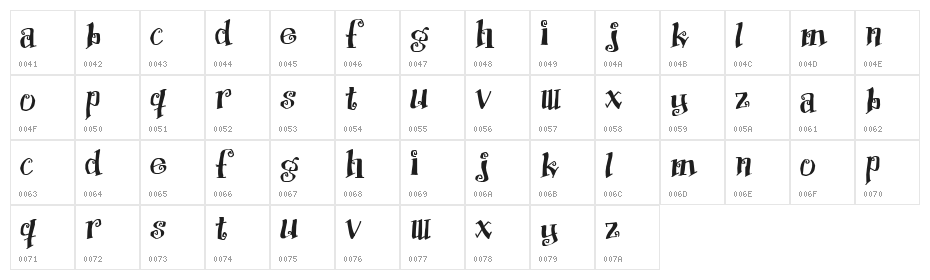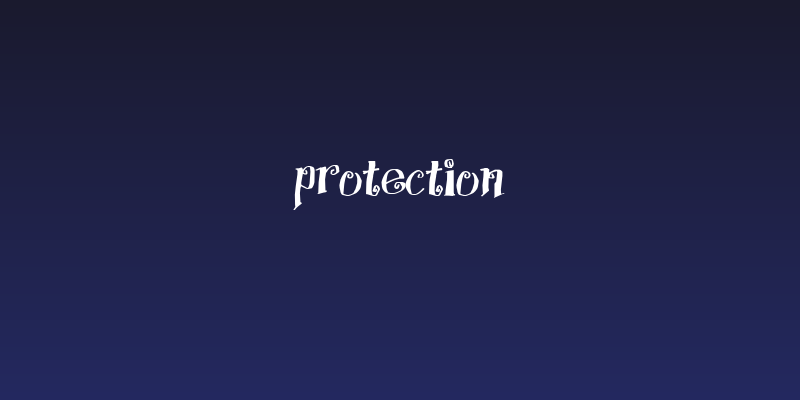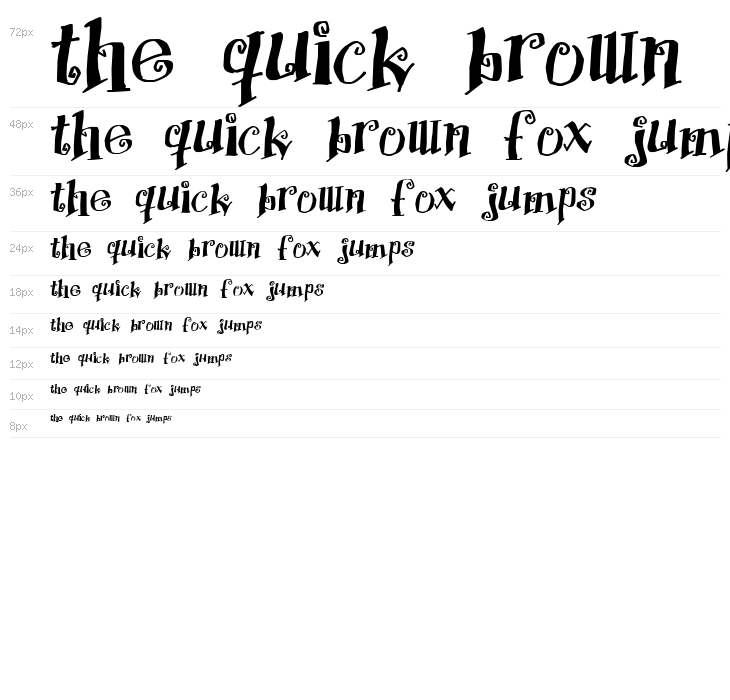
Protection Font
Protection Description
This font features a whimsical and playful design with a distinct handwritten style. Each character is adorned with unique curls and swirls, giving it an artistic flair. The letters have varying stroke widths, adding to the dynamic and lively appearance. The uppercase and lowercase letters maintain a consistent style, with exaggerated serifs and decorative elements. The font lacks numerical and special character representations, focusing solely on the alphabet. Its overall look is reminiscent of a fairy tale or fantasy theme, making it suitable for creative and imaginative projects.
| Proposed Projects | Ideal for children's books, fantasy-themed invitations, and creative branding. |